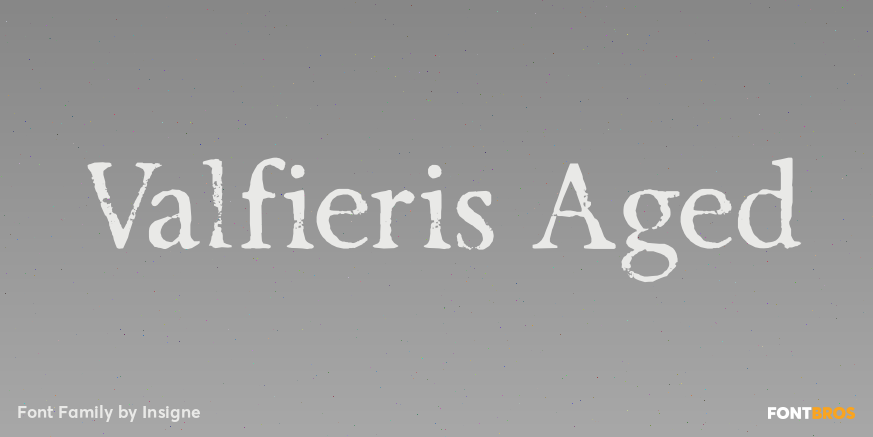
Valfieris Aged
About Valfieris Aged
Valfieris Aged looks as though it just came off an antique printing press. Ink has pooled in the serifs and on the corners, and the metal did not make full contact with the paper in center of the letters. Valfieris Aged includes a full set of OpenType…